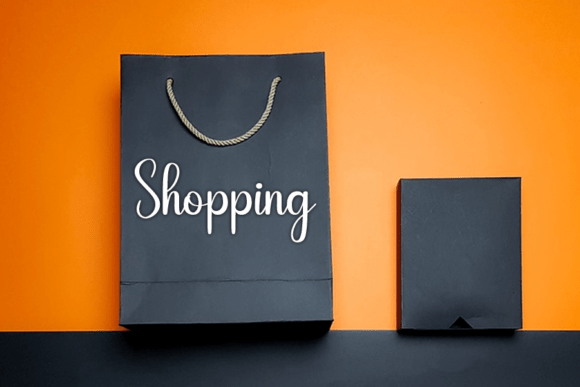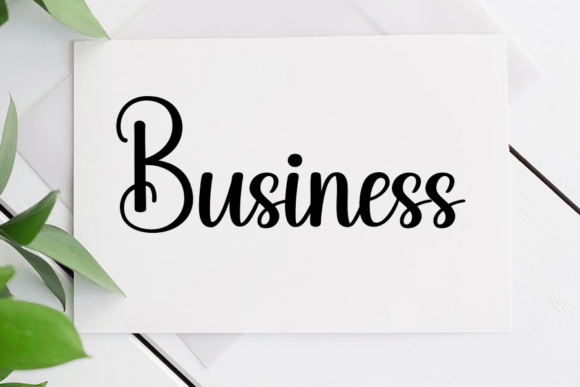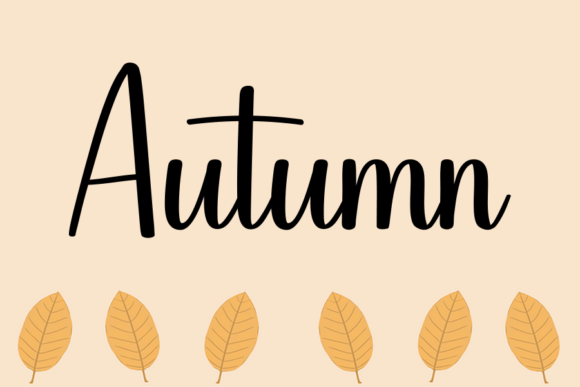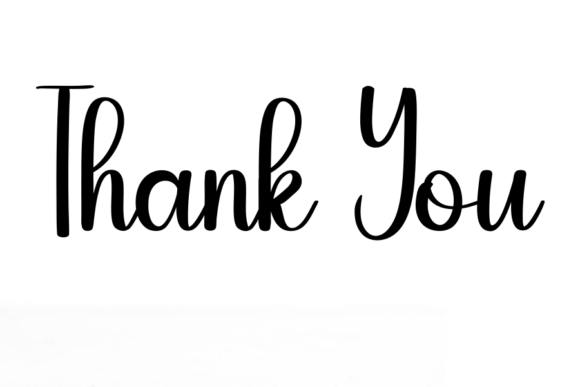
The Perfect Font for Celebrating Life’s Special Moments
Do you ever find yourself searching for the perfect font to capture the essence of a special occasion? Perhaps you’re designing a wedding invitation, a birthday card, or a branding campaign that screams joy and elegance. Whatever the case, we’re here to introduce you to a font that’s sure to steal the show: the Birthday Font.
This sweet and cursive handwritten font is designed to add a touch of whimsy and romance to your designs. Whether you’re working on a branding project, a marketing campaign, or a personal project, the Birthday Font is sure to bring a smile to your face and a touch of magic to your creations. As a designer, you know the importance of choosing the right font to convey the right message, and the Birthday Font is sure to become a valuable addition to your toolkit.
Birthday Font Key Features
- Unique Characteristics: Features a playful and celebratory design, perfect for birthday invitations, party decorations, and other festive occasions
- Font Style: Includes a range of font styles, including bold, italic, and regular, to add variety to your designs
Birthday Font Review
Overall, I think the Birthday Font is a cute and playful addition to any design project. Here are some things that work well:
- ✨ The font’s design is very reminiscent of celebratory and festive occasions, which makes it perfect for birthday invitations, party decorations, and other related materials.
- ✨ The font’s script style adds a personal touch, making it feel more handwritten and unique.
- ✨ The font’s color palette is also quite vibrant and fun, with a variety of bright and pastel colors to choose from.
- ⚠️ The font may not be suitable for all types of projects, such as formal invitations or professional communications.
- ⚠️ The font’s design can feel a bit too playful and childish for some audiences.
Overall, I think the Birthday Font is a great choice for designers who want to add a touch of whimsy and fun to their projects. Just be sure to consider the audience and purpose of your design before choosing this font.
Use the Birthday Font to add a personal touch to your birthday invitations, party decorations, and gift cards.
Experiment with different font sizes and styles to create a unique look.
Combine the Birthday Font with other festive elements, such as balloons and confetti, to create a celebratory atmosphere.